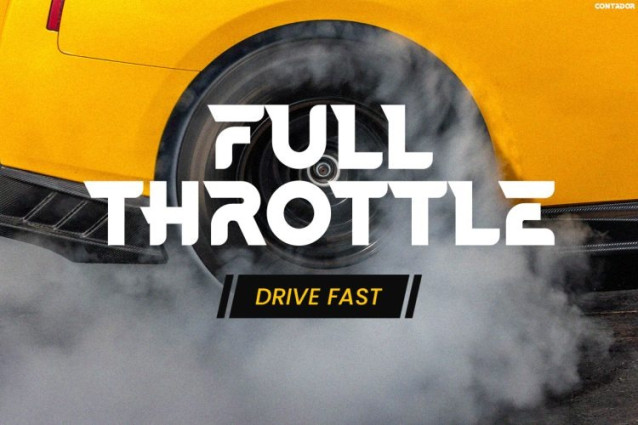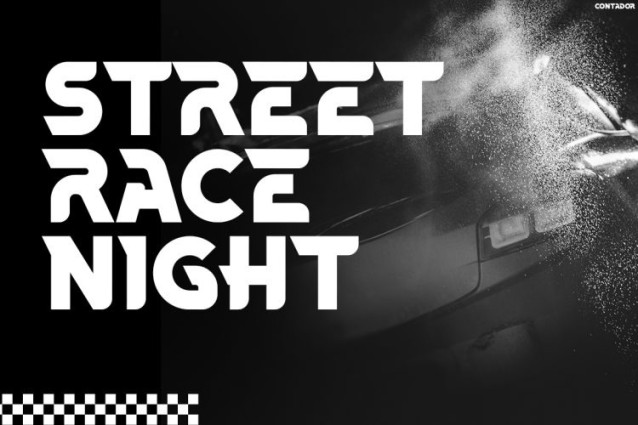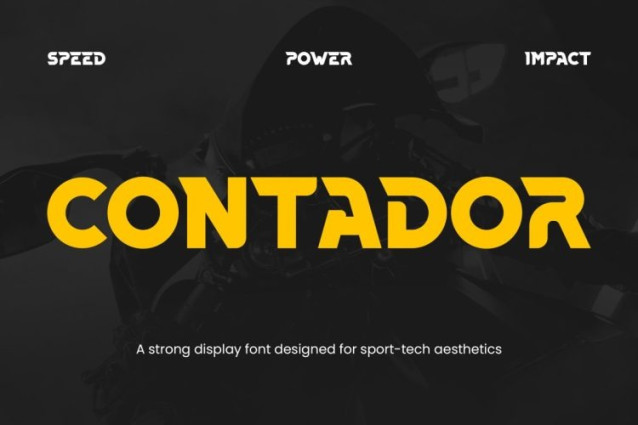
Contador Font is a powerful and dynamic typeface built to capture speed, strength, and adrenaline in every design. At first glance, its sharp angles and aggressive letterforms create a strong racing-inspired look. Moreover, the geometric cuts and bold structure give it a modern, high-performance aesthetic. Because of its compact and impactful style, every word feels fast, energetic, and full of motion. In addition, the font maintains strong readability even in bold layouts. As a result, CONTADOR is perfect for designs that need to feel intense, sporty, and attention-grabbing.
CONTADOR is a bold display font crafted for high-energy and performance-driven visuals. Not only does it feature strong and edgy letterforms, but it also pairs perfectly with automotive themes, racing graphics, and urban sports designs. Furthermore, its structured style helps create clean and impactful compositions. Therefore, whether you are working on posters, branding, or digital content, CONTADOR adds a fast and modern touch. Ultimately, it transforms simple text into powerful visuals that stand out instantly.